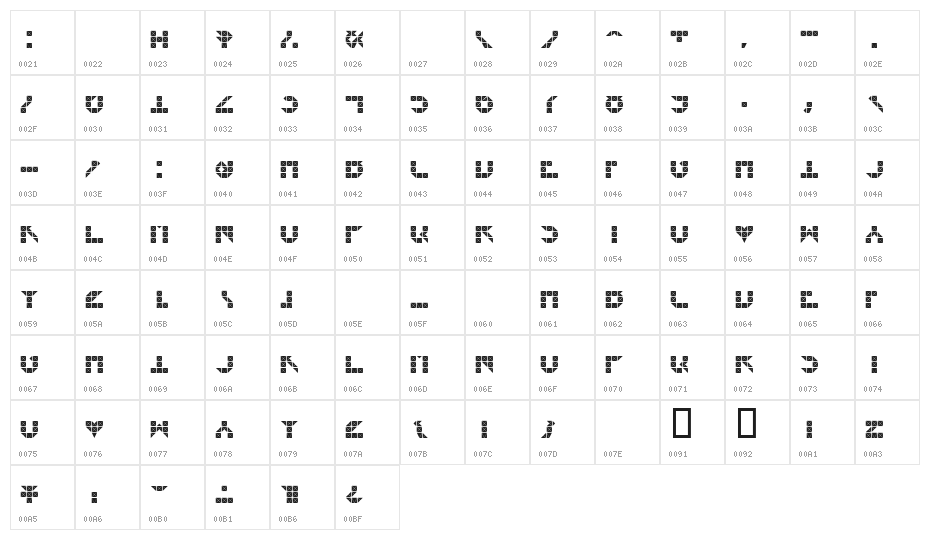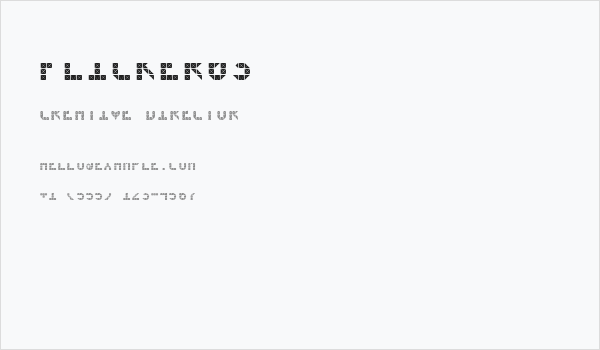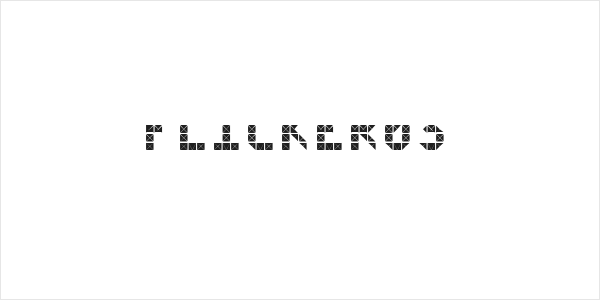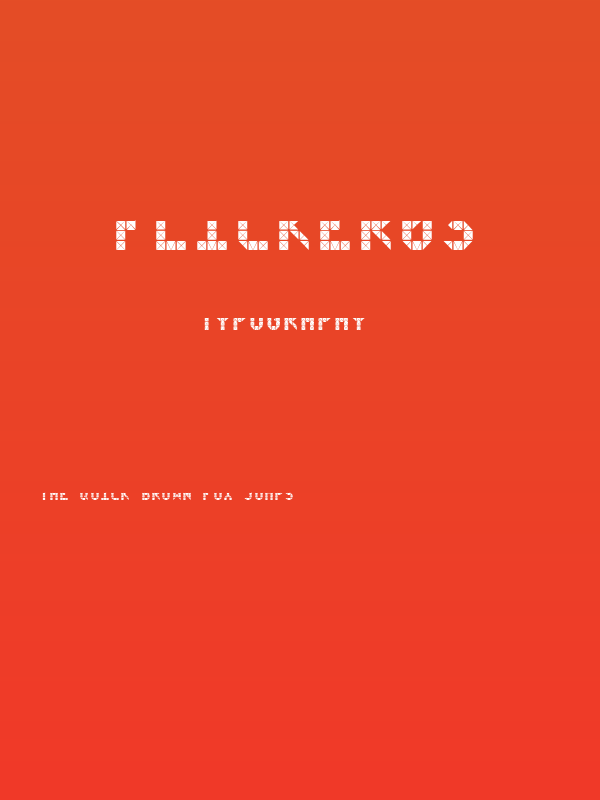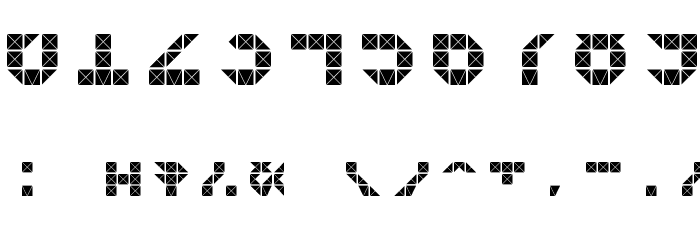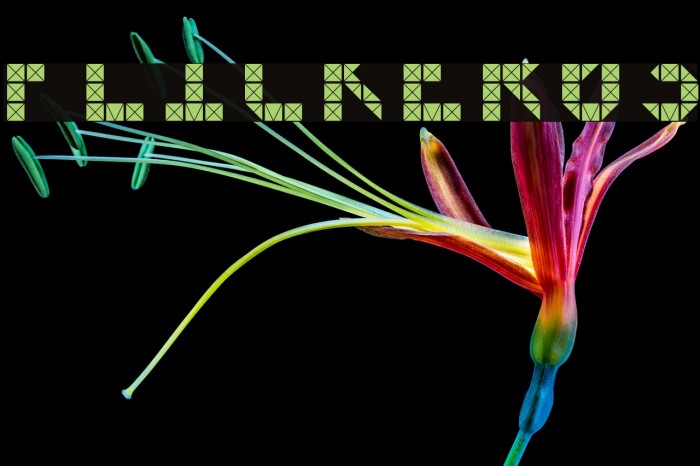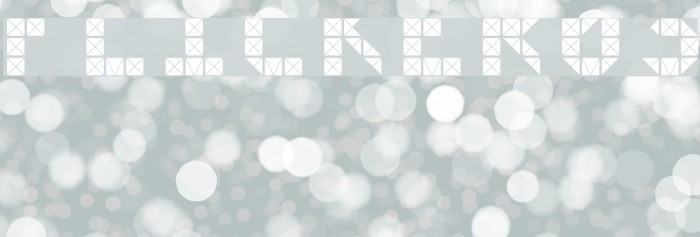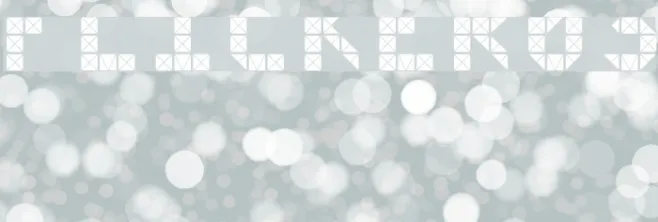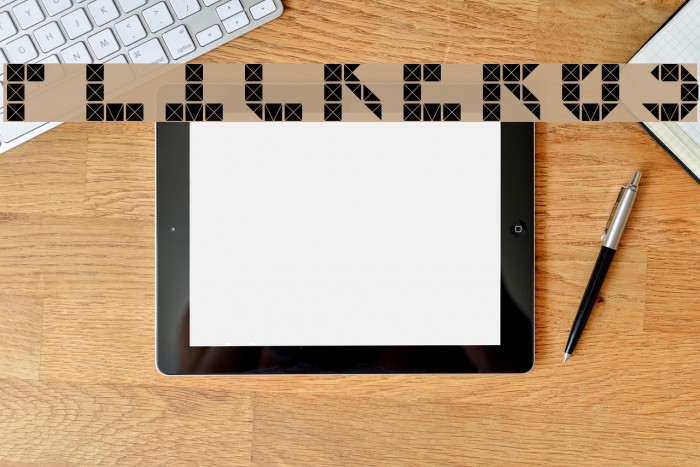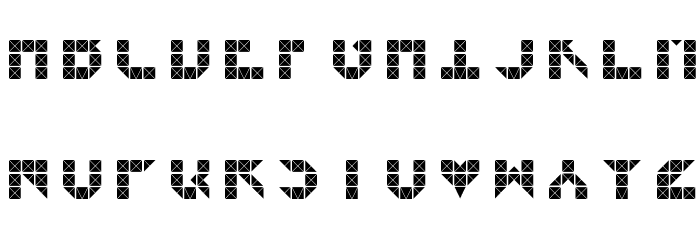
Flicker03 Font
Flicker03 Description
This font features a unique geometric design composed of small triangular shapes forming each character. The letters and numbers are constructed with a mosaic-like pattern, giving them a distinct and modern appearance. The angular and fragmented style creates a sense of movement and energy, making it stand out in any design project. The font maintains a consistent structure across all characters, ensuring readability while offering a decorative flair. The special characters, including symbols like the heart and star, are integrated seamlessly into the overall design, enhancing its versatility.
| Proposed Projects | Ideal for digital art projects, modern branding, posters, and creative advertising campaigns. |